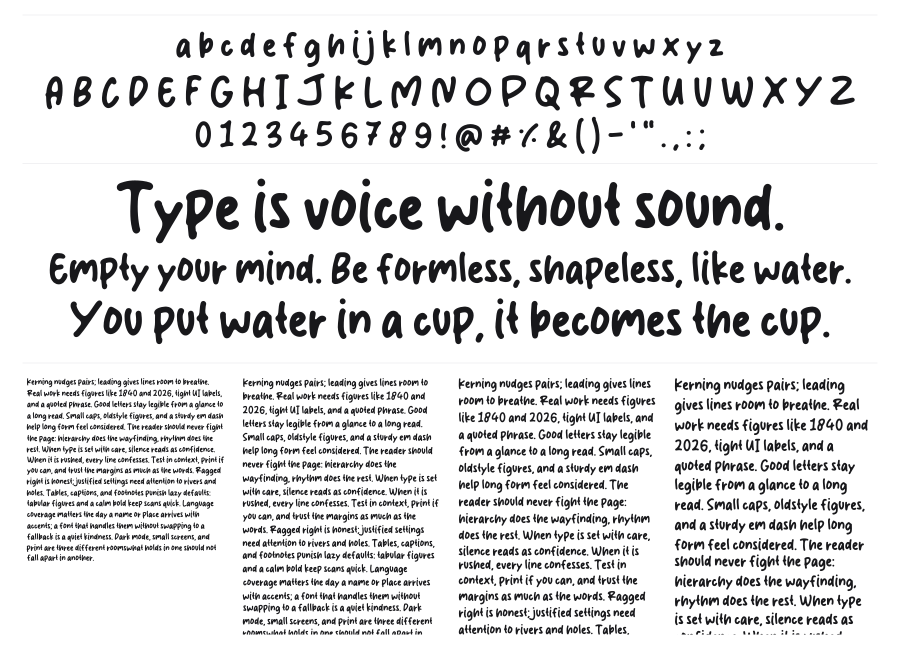
Beach Vibes
Beach Vibes is a bold casual handwritten font with thick rounded strokes and a naturally bouncy rhythm. Each character sits with slight irregularity, capturing the feel of loose, confident hand-lettering without looking sloppy. It works best at large sizes for brand identities, packaging, and anything that needs a warm, easygoing personality.